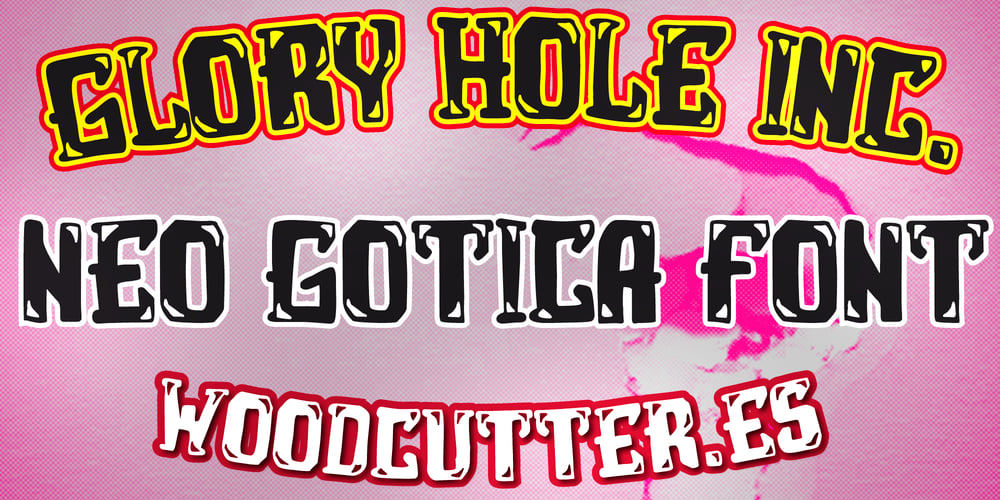
Glory Hole Inc
Glory Hole Inc font
Glory Hole Inc Font Family was designed by Jordi Manero and published by Woodcutter. Glory Hole Inc contains 1 styles and family package options. “Glory Hole Inc.” is an uppercase typeface with a unique design that combines modern gothic style with decorative shimmering accents. Each letter is adorned with subtle shines at its corners, adding an elegant yet dark touch. Its aesthetic blends classic and contemporary elements, making it perfect for projects seeking sophistication and bold character. Ideal for album covers, posters, and daring branding, this font captures a sense of mystery and luxury with its balanced mix of ornamentation and gothic design.–Uppercase